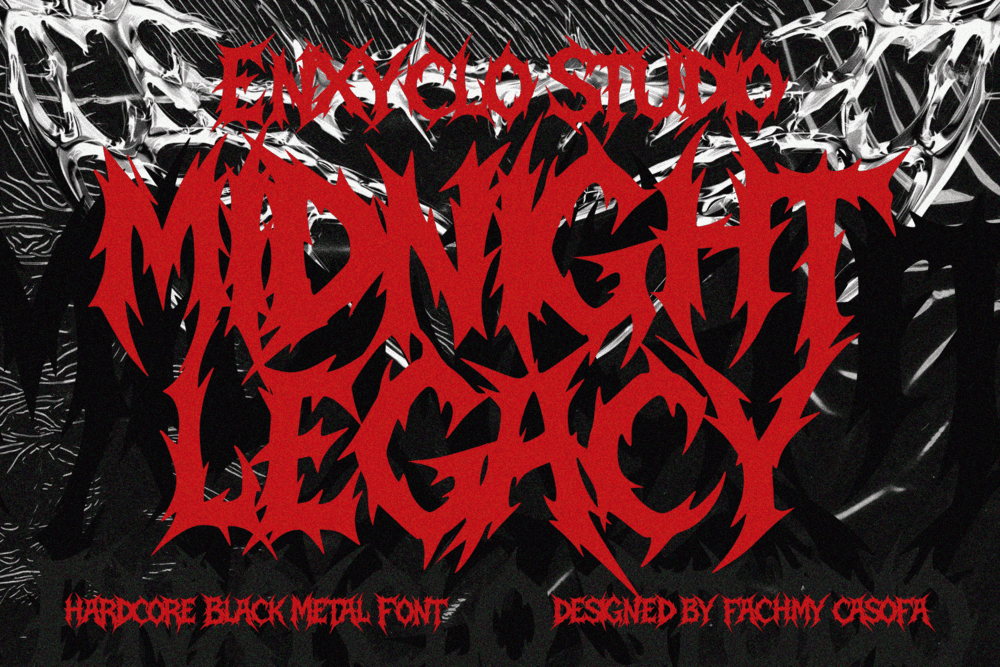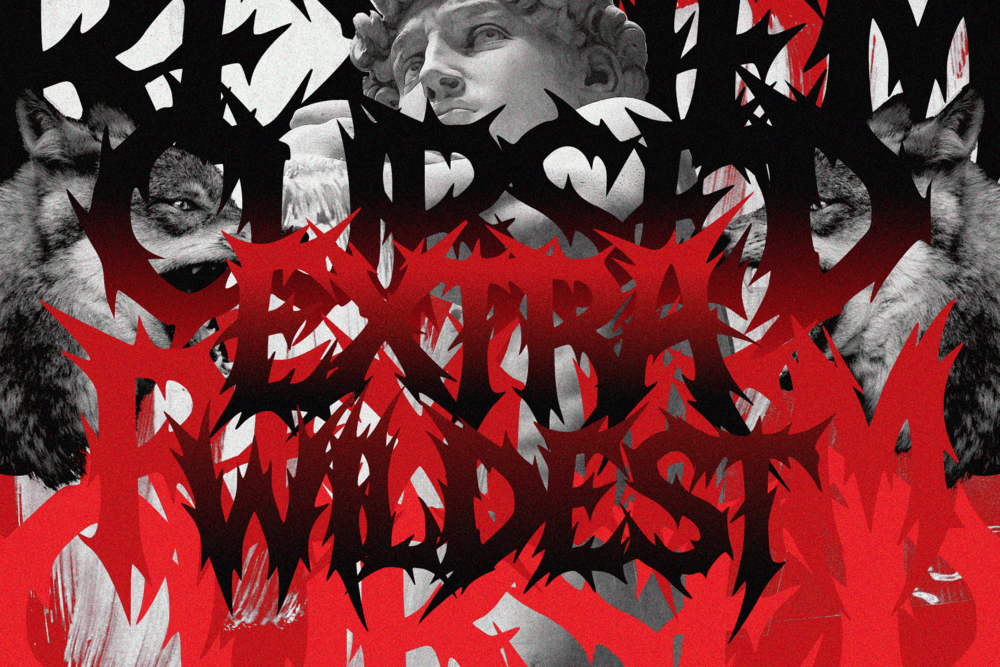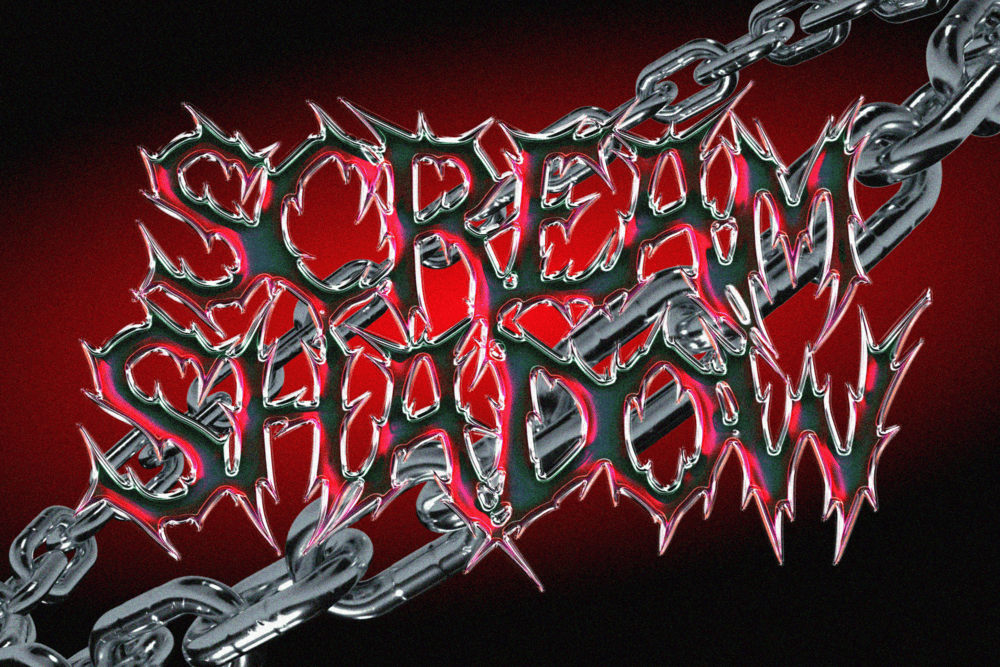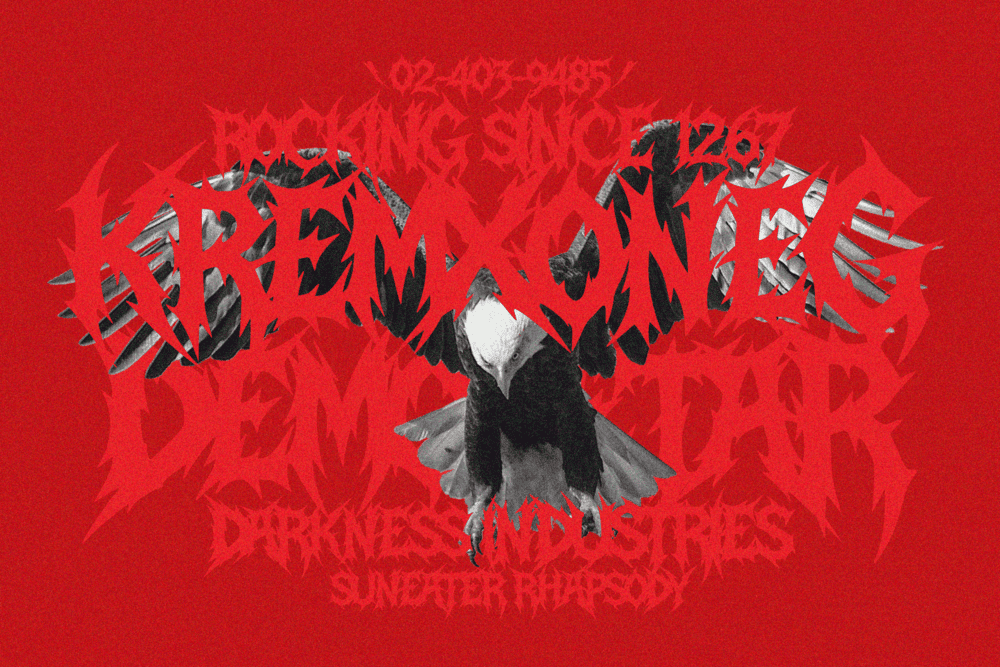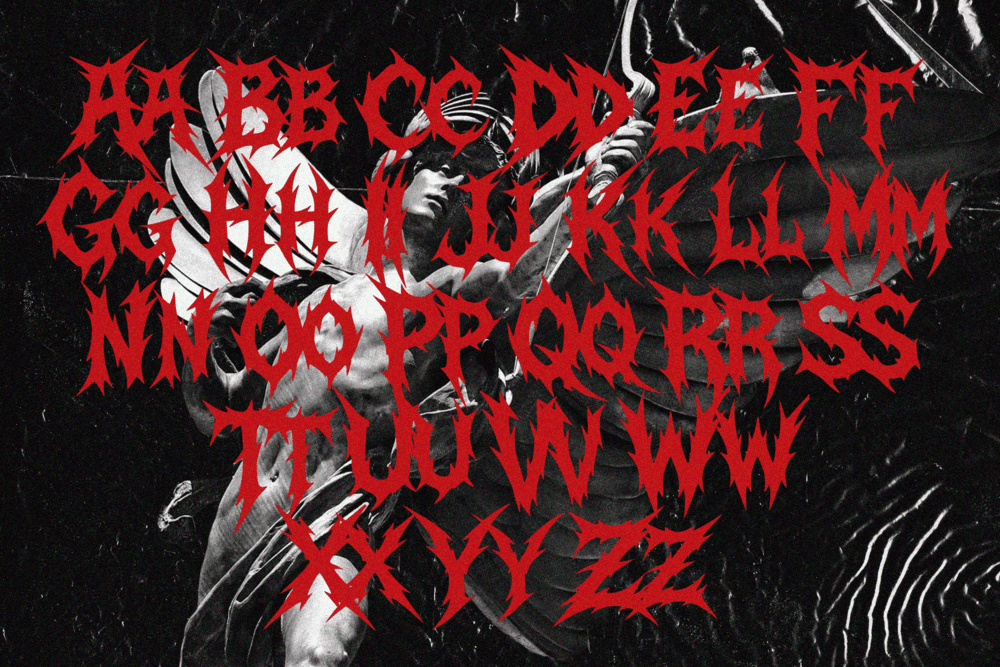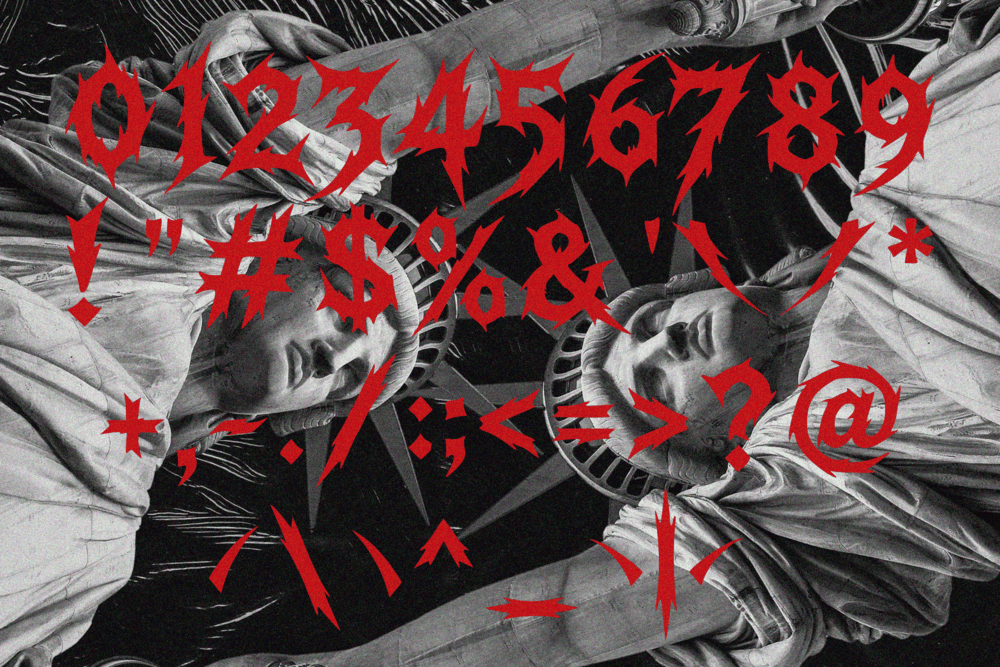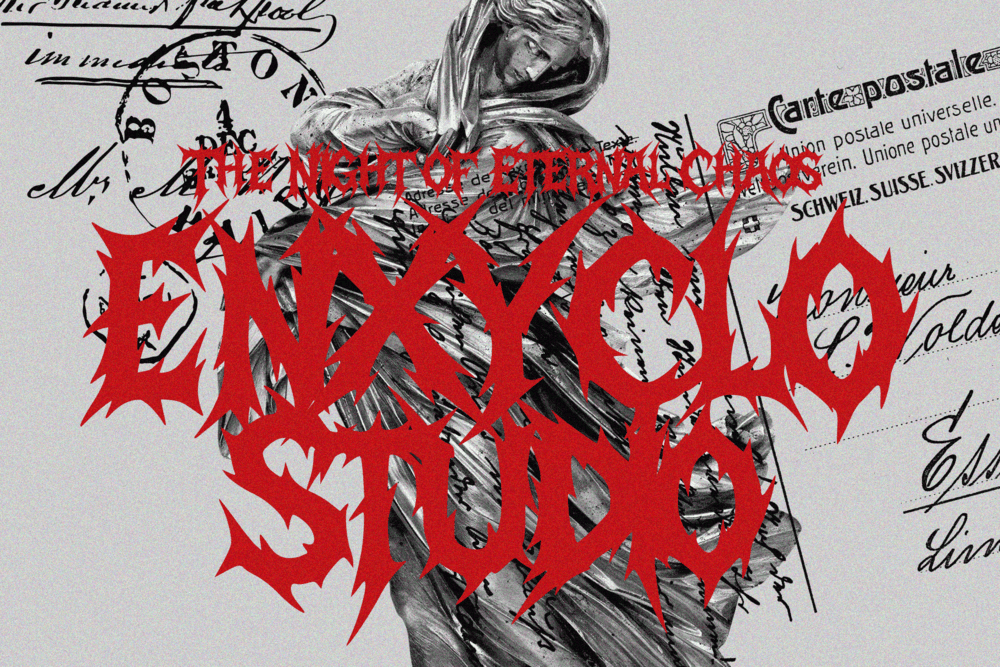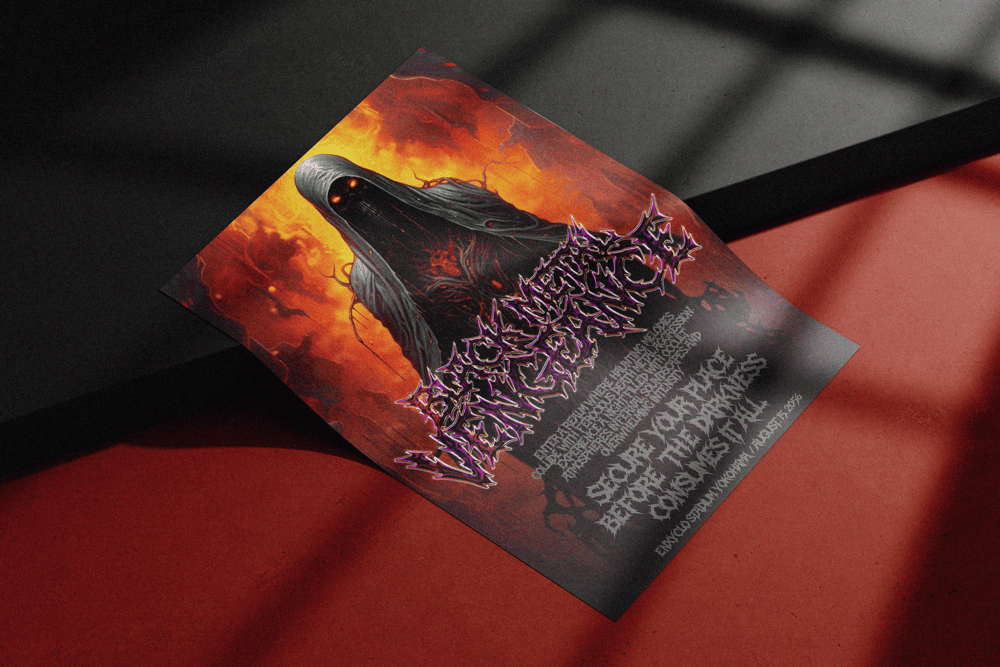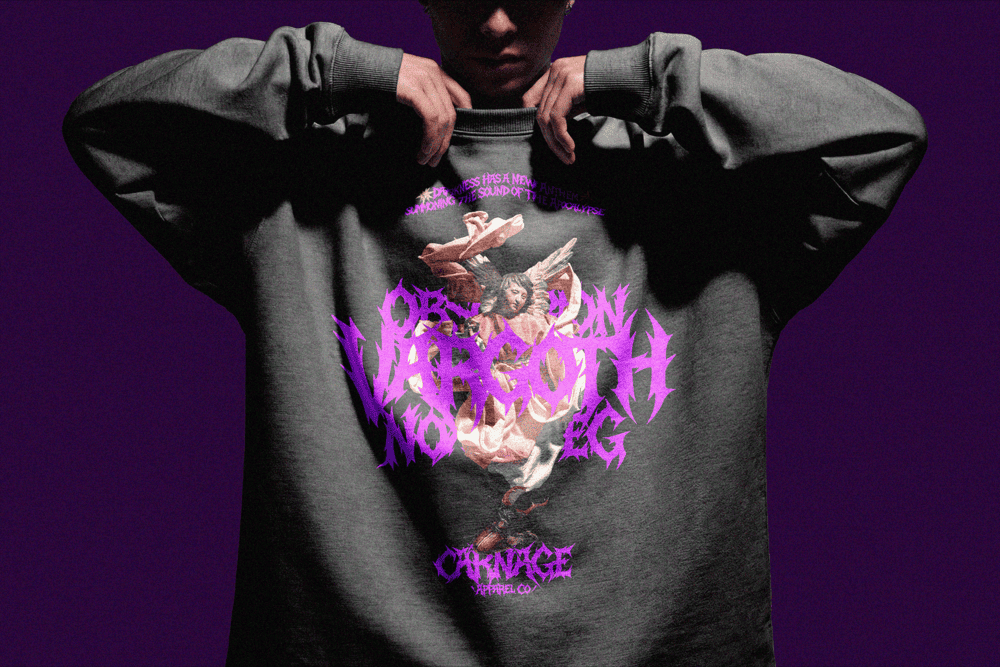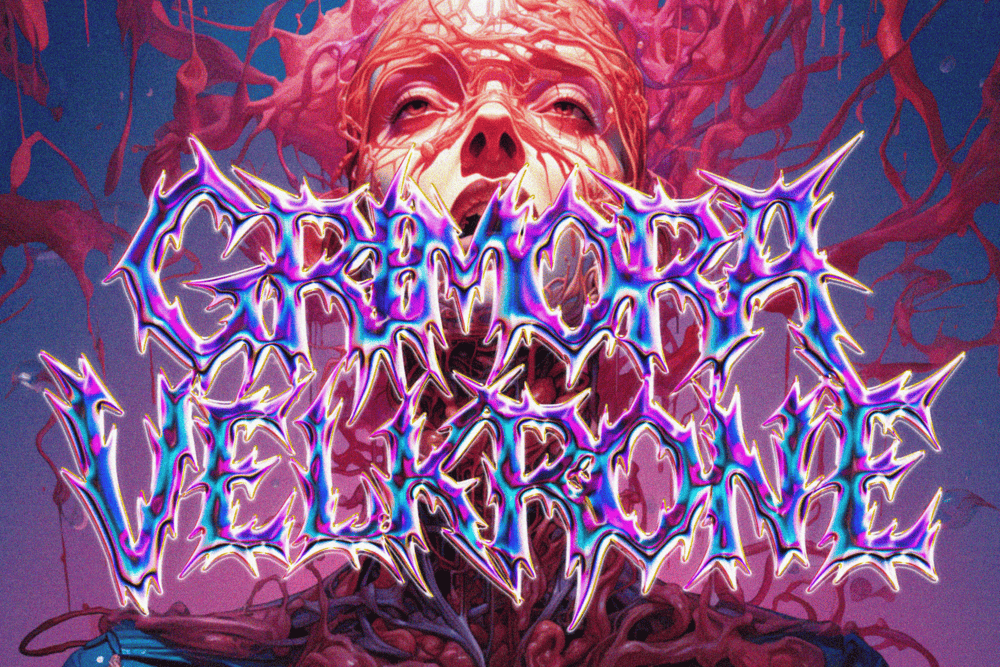
MIDNIGHT LEGACY is a modern timeless black metal font forged from darkness, chaos, and uncompromising artistic expression. Inspired by the raw energy of black metal, death metal, heavy metal, and underground music culture, this typeface transforms typography into a powerful visual statement. Its sharp, scratchy forms and aggressive structure embody the spirit of rebellion, intensity, and extreme creativity. Every letter is crafted with rough textures, tribal-inspired details, and jagged contours that evoke the atmosphere of ancient darkness and modern metal aesthetics. The design captures the visual language of thrash metal, hardcore, metalcore, and extreme rock scenes, creating a brutal yet artistic balance between chaos and control. The result is a font that feels fierce, expressive, and instantly recognizable.
Designed for creators who refuse to follow convention, MIDNIGHT LEGACY delivers a commanding presence across music and alternative culture projects. Whether featured on an album cover, band logo, tattoo design, merchandise artwork, or underground event poster, this font injects raw energy and aggressive personality into every composition. Its distinctive forms create a sense of movement and intensity that demands attention. Dark, bold, and unapologetically powerful, MIDNIGHT LEGACY is more than a typeface—it is a visual anthem for those who embrace the spirit of metal. Built for modern creators yet rooted in the timeless aesthetics of extreme music, it transforms ordinary text into an unforgettable symbol of strength, rebellion, and artistic freedom.
FEATURE
• Uppercase & Lowercase Letters
• Numeral, Punctuation Marks, Currencies & Symbol Set
PERFECT FOR
• Black Metal & Death Metal Band Logos
• Album Cover Design
• Heavy Metal & Rock Merchandise
• Tattoo Artwork & Lettering
• Thrash Metal & Hardcore Posters
• Underground Music Branding
• Metalcore Visual Identity
• Festival & Concert Promotions
• Dark Apparel Graphics
• Extreme Music Social Media Content
• Alternative Streetwear Design
• Gothic & Dark Art Projects
• YouTube Music Channel Branding
• Custom Band Emblems
• Aggressive Headline Typography